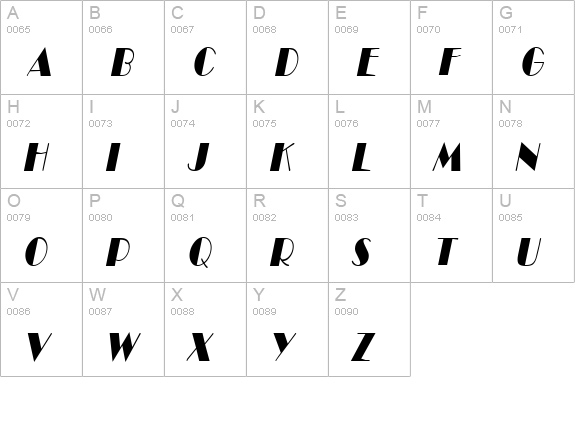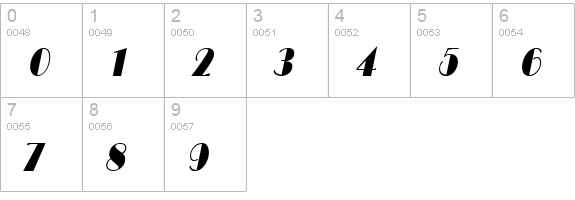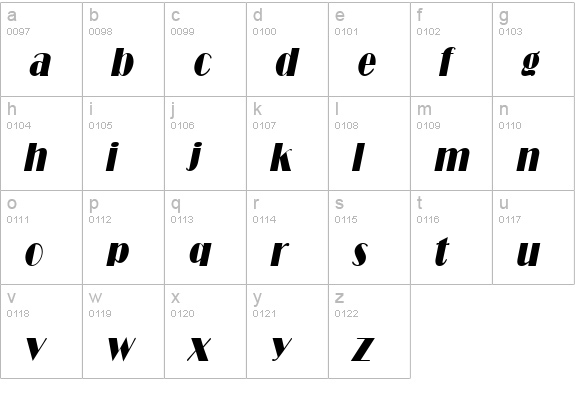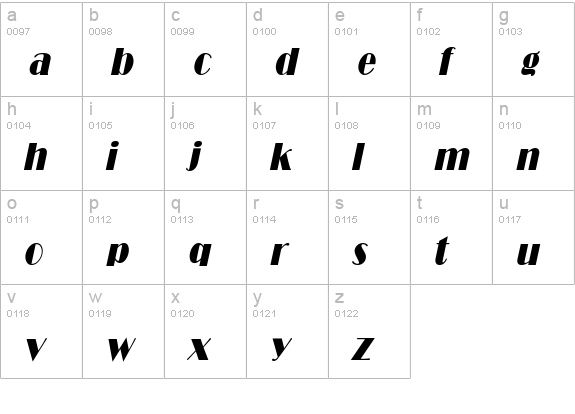
Brando Condensed Italic is a distinctive, condensed-width, italic variant in the Brando typeface family \xE2\x80\x94 well suited to design and typography projects.
Brando Condensed Italic font is a sleek and modern typeface that exudes sophistication and elegance. Its slanted characters add a dynamic flair to any design project, making it perfect for creating eye-catching headlines or stylish branding materials. The condensed style of this font saves space without sacrificing readability, making it ideal for projects that require a clean and professional look. Best of all, Brando Condensed Italic font is available for free download at FontsMarket.com. Whether you're a graphic designer looking to add a touch of class to your creations or a business owner in need of a polished font for your marketing materials, this font is sure to impress. Don't miss out on the opportunity to elevate your designs with this versatile and stylish typeface, available for free at FontsMarket.com.